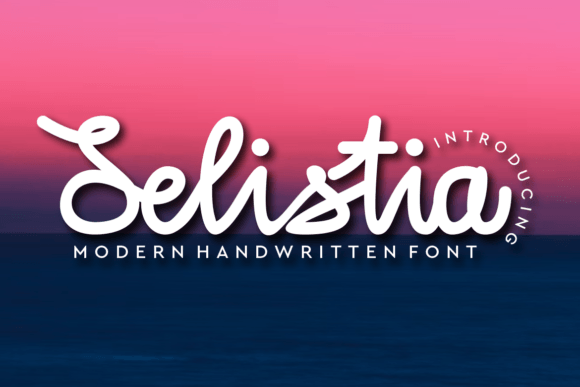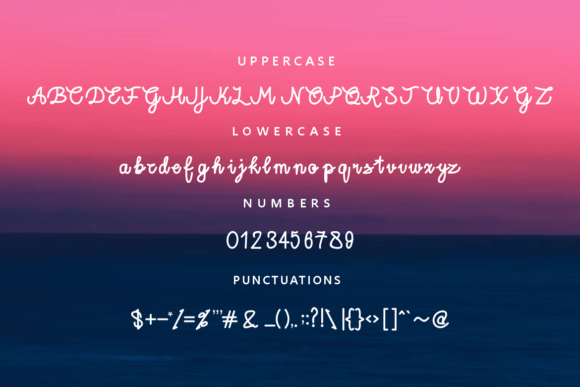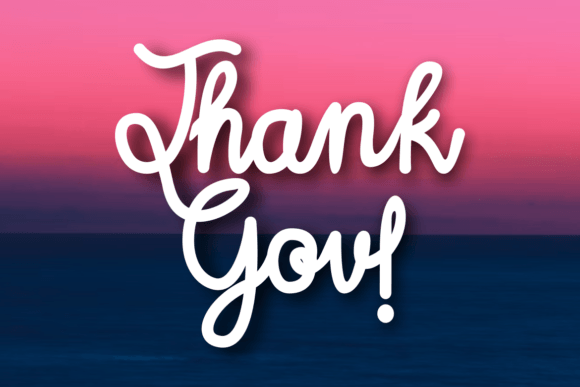
Introduction to Selistia Font
Have you ever been working on a design project, pouring your heart and soul into every detail, only to feel like something’s missing? That’s when you stumble upon the perfect font, and everything clicks into place. For designers, the right font can elevate a project from good to great, and that’s exactly what the Selistia Font offers.
This beautiful, flowing handwritten font is a game-changer for any creative project. Its elegant touch and timeless style make it the perfect choice for designers looking to add a personal touch to their work. With its high-quality design and transparent background, the Selistia Font is a valuable resource for designers who want to take their projects to the next level.
Key Features of Selistia Font
- Designed with a unique, elegant style that sets it apart from other fonts, making it perfect for those seeking a distinctive look.
Honest Review: Selistia Font
I recently stumbled upon the Selistia Font, and I must say it’s been a great addition to my design resource library. The high quality of this font makes it perfect for any creative project, whether it’s a logo design, typography project, or even a simple text overlay.
One of the things I love about the Selistia Font is its transparent background, which allows for seamless integration into any design. This feature makes it an excellent choice for designers who want to create visually appealing and professional-looking designs.
However, I did notice a few limitations:
- ⚠️ Limited character set, which may not be suitable for long-form text projects
- ⚠️ Not as versatile as some other fonts, which may limit its use in certain design contexts
Overall, I’m impressed with the Selistia Font, and I think it’s a great addition to any designer’s library. With its high-quality design and transparent background, it’s perfect for a wide range of creative projects. Just be aware of its limitations, and use it accordingly.
Selistia Font is perfect for creative projects such as graphic design, branding, and digital marketing. Use it to create eye-catching headings, titles, and graphics that stand out from the crowd.